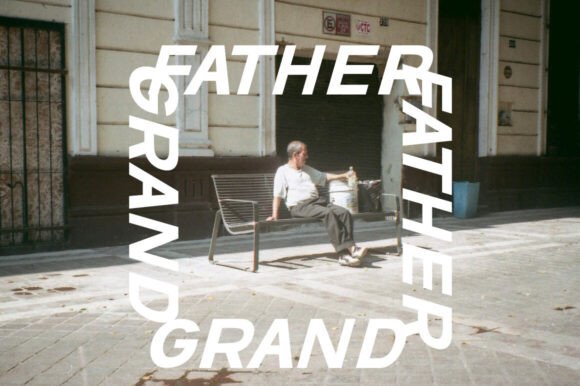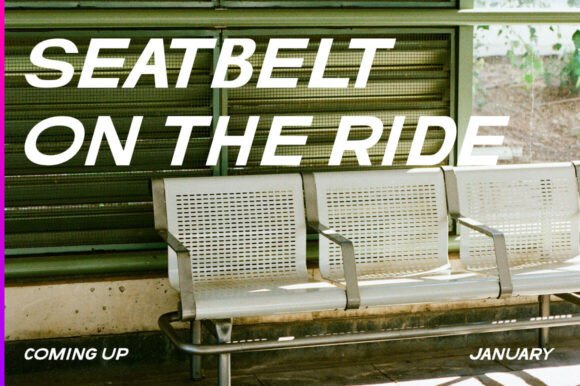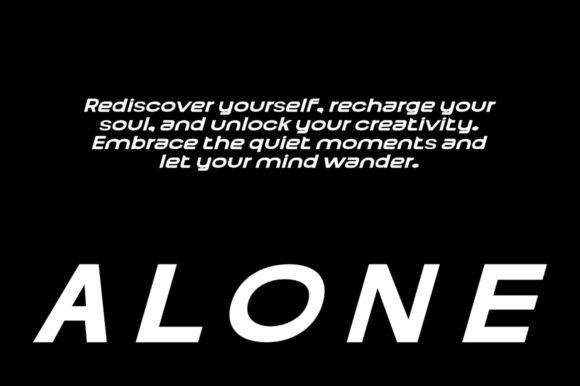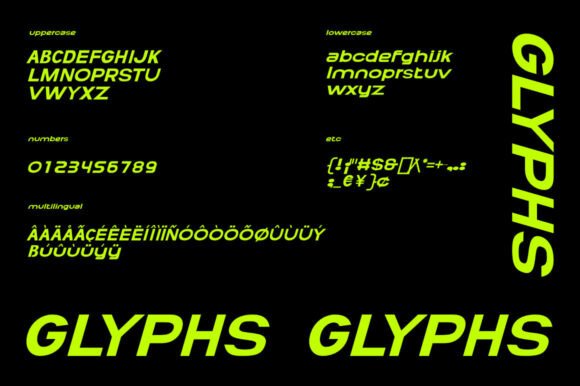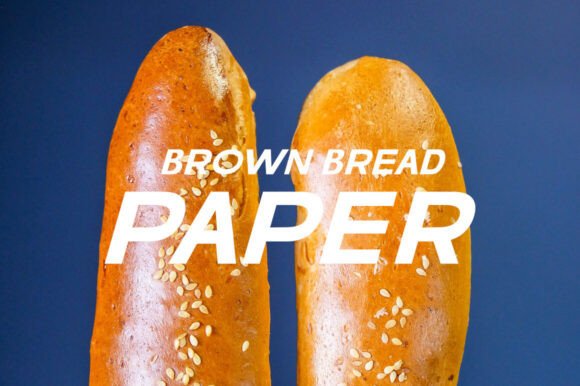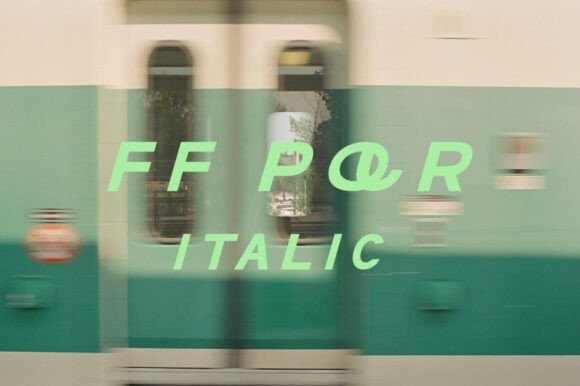
Unlock the Power of Typography: Discover the Ff Pqr Italic Font and Elevate Your Design
As a designer or craftsperson, you understand the importance of typography in creating visually stunning and effective designs. The right font can elevate your project, convey your message, and leave a lasting impression on your audience. In this article, we’ll explore the world of typography, focusing on the Ff Pqr Italic Font, and provide you with a comprehensive guide to finding the perfect typeface for your next project.
The Importance of Typography in Design
Typography is more than just selecting a font; it’s an art form that requires careful consideration of style, tone, and audience. The right typography can:
- Establish your brand’s identity and voice
- Enhance the aesthetic appeal of your design
- Improve readability and user experience
- Convey emotions and evoke responses
Introducing the Ff Pqr Italic Font
The Ff Pqr Italic Font is a stylish and elegant typeface that can add a touch of sophistication to any design. Its unique characteristics make it an excellent choice for:
- Headings and titles
- Branding and packaging
- Marketing materials and advertising
- Websites and digital media
| Font Name | Ff Pqr Italic Font |
| Author | ffeeaarr |
Your design deserves a font that’s as distinctive as you are. With the Ff Pqr Italic Font and our vast collection of typography options, you can elevate your project and leave a lasting impression on your audience. Take the time to explore, experiment, and find the perfect typeface that speaks to your vision.